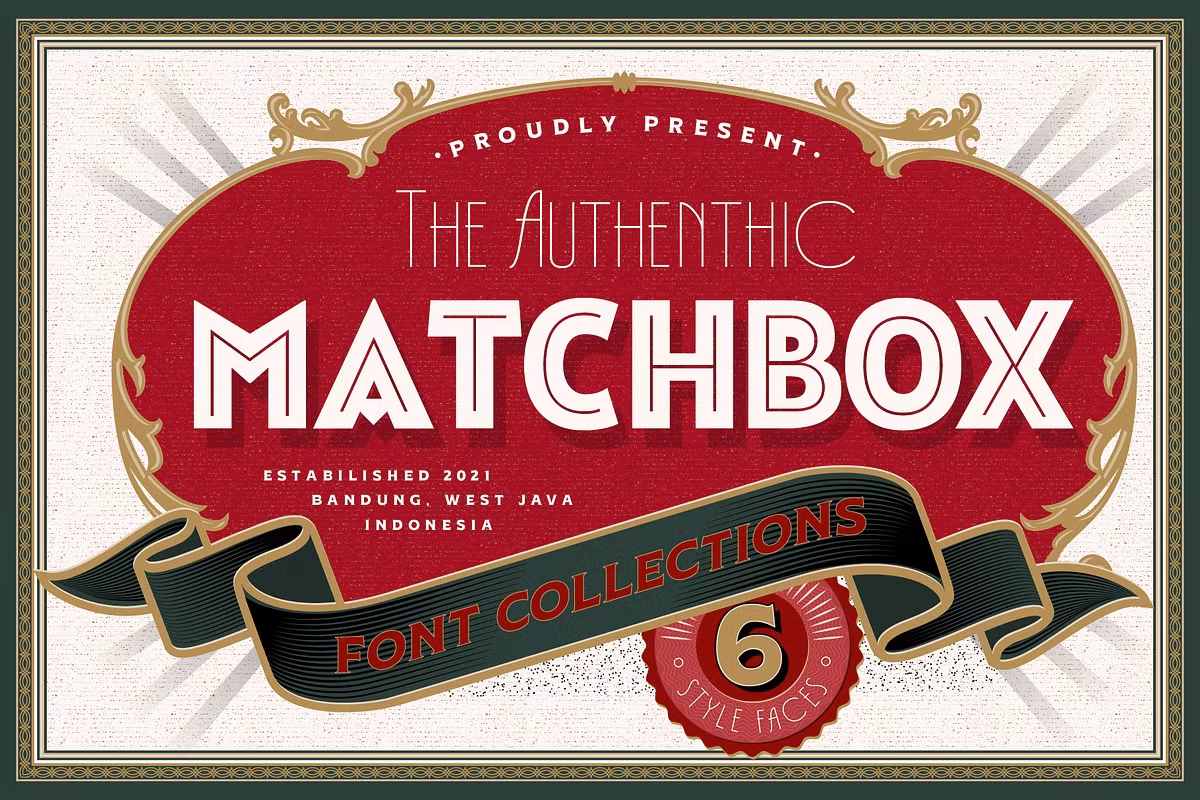
Matchbox Font Collections Free Download
Matchbox Font Collections Free Download is a versatile and creative type bundle featuring a curated mix of fonts that work beautifully together. Whether you're designing bold headlines, playful logos, vintage packaging, or stylish social media posts, this collection offers a wide range of styles—from retro scripts to quirky sans-serifs and textured display fonts.
Each font in the Matchbox collection is crafted with attention to detail and character, giving you the flexibility to mix and match for truly unique designs. With dynamic styles and layered aesthetics, this bundle is perfect for creatives who want variety and cohesion all in one package.